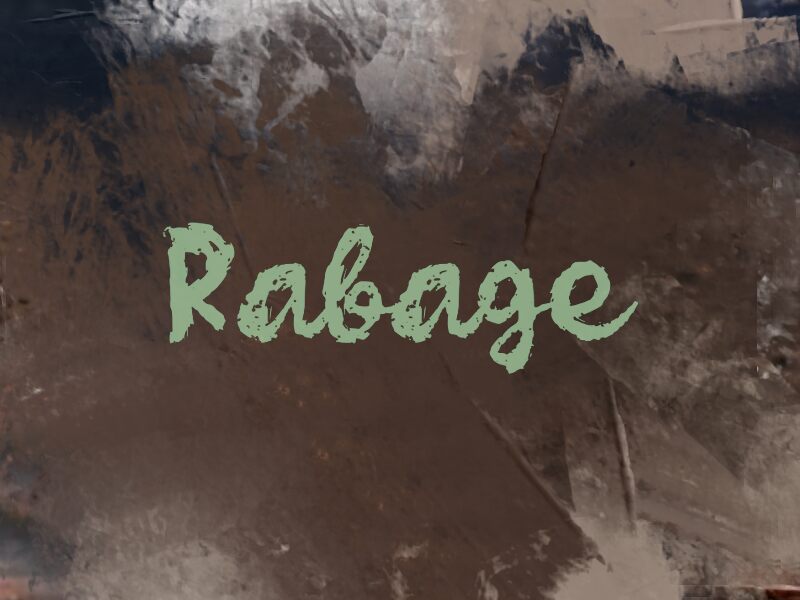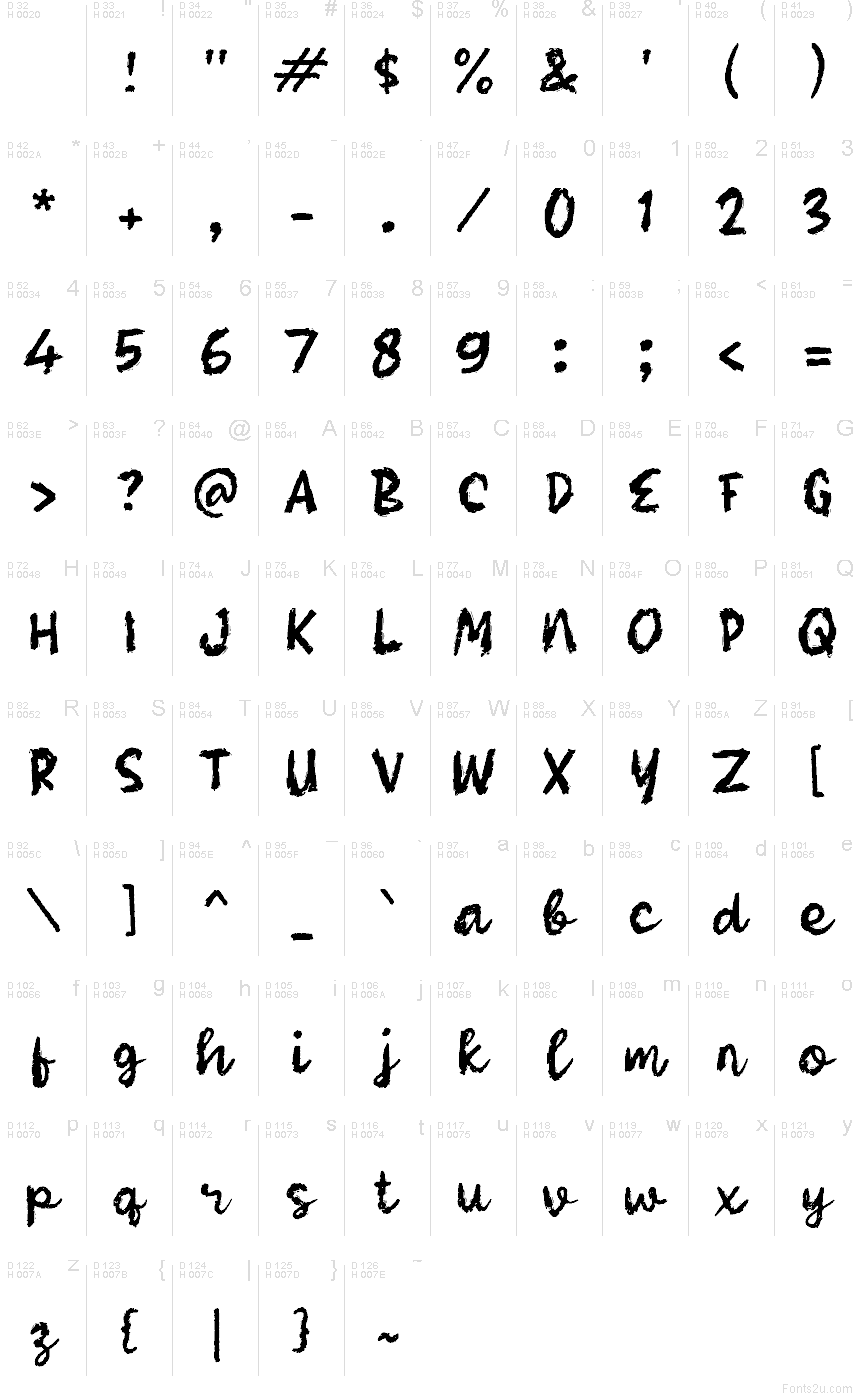
Rabage
Rabage font by wep is a free trash script typeface that looks like it’s been dragged through wet paint and asphalt. Bold, inky strokes twist into loose handwriting, while rough splatters and chipped edges give every word a scraped, gritty energy. It feels raw and physical, like marker tags on a wall or brush lettering done on torn cardboard at midnight.
Using Rabage, you can push attitude to the front of your layouts—this free font hits hard on album covers, gig posters, zines, horror titles, streetwear branding, and rebellious social graphics. Its messy rhythm creates motion and noise, even in a single word. For balance, pair Rabage with a clean, condensed sans serif in smaller text and let this script shout in large sizes as your main headline.